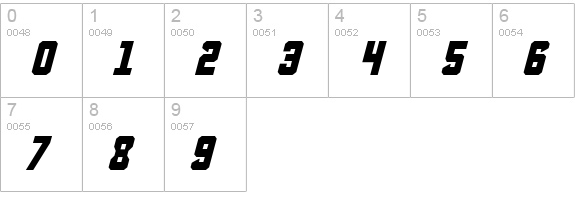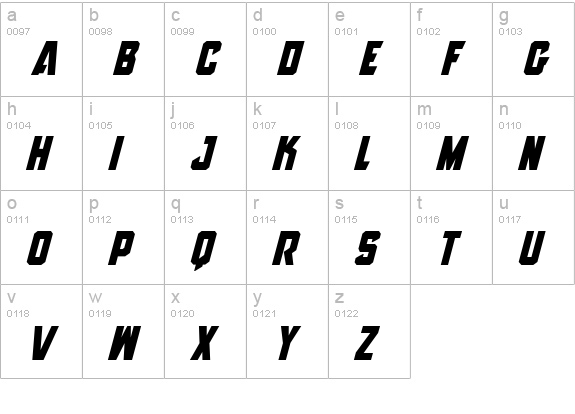
Anitlles Italic is a distinctive, italic variant in the Anitlles typeface family \xE2\x80\x94 well suited to design and typography projects.
Antilles Italic font embodies elegance and sophistication with its sleek, slanted design that adds a touch of modern flair to any project. The graceful curves and striking angles of this font make it a versatile choice for a wide range of creative endeavors, from branding to editorial design. Its italic variation adds a dynamic element to text, making it perfect for emphasizing key points or creating a sense of movement. And the best part? Anitlles Italic font is available for free download at FontsMarket.com. This means you can easily elevate your designs without breaking the bank. So why wait? Add a touch of style to your projects with Anitlles Italic font today!